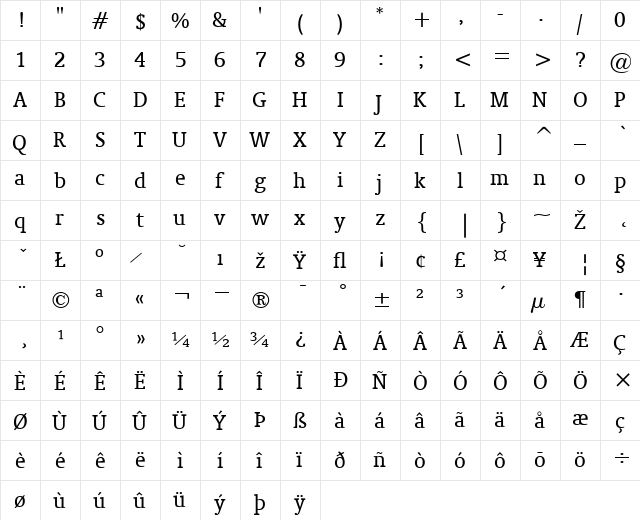
Oranda Regular
Design Context for Oranda Typeface
Oranda takes a measured approach to typography — its balanced proportions and neutral character make it a reliable workhorse for both digital and print work.
Pro Tip: Use Oranda in both headline and body roles to test its range before committing to a single application.